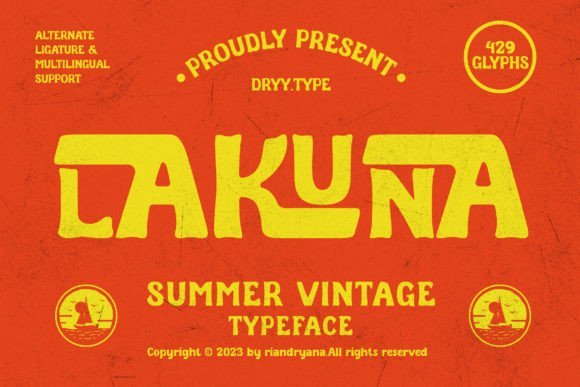
Lakuna, Elegant Serif Display Font for Logos
Lakuna is a hand‑drawn vintage display font featuring a distressed texture and decorative, retro‑inspired letterforms. Its weathered, nostalgic appearance gives your designs a handcrafted, timeless feel — ideal for anything from vintage‑style posters and packaging to rustic apparel and branding. Whether you’re going for retro charm, rustic vibes, or handcrafted appeal, Lakuna adds character and warmth to your typography.
- Vintage or rustic‑style posters, flyers, and print ads
- Retro‑themed T‑shirts, hoodies, mugs, tote bags, stickers — ideal for POD or handmade merch
- Product labels, packaging, signage, or branding materials for handmade, vintage, or boutique‑style products
- Vinyl decals, rustic‑look signage, home‑decor prints, and craft projects using cutting machines or vector software
- Digital art, social‑media graphics, greeting cards, or art prints with nostalgic, weathered typography
Lakuna gives your designs a warm, handcrafted, vintage texture that feels authentic and timeless. It stands out for projects seeking rustic charm, retro nostalgia, or artisanal vibes — ideal for boutique brands, handmade products, and classic‑style merchandising. As a free font with a license including commercial use, it’s a cost‑effective way to add strong personality and character to apparel, packaging, print, and digital creations.
A: Absolutely — Lakuna’s distressed, retro look makes it ideal for logos, product packaging, handmade goods, signage, and branding with a nostalgic or rustic vibe. -
| Style / Vibe | Hand‑drawn, distressed, vintage/retro, nostalgic, rustic | Modern, minimal, clean, neutral sans‑serif | Retro display but flat and clean (no distressed texture) |
| Best Use Case | Vintage posters, rustic packaging, handmade‑brand labels, retro merch, craft signage | Modern branding, clean packaging, minimal UI/web text | Retro‑themed graphics, but more polished & less organic than Lakuna |
| Feel‑Good / Uniqueness | High — handmade, weathered, nostalgic look gives personality | Low — clean and neutral, lacks vintage or distressed character | Medium — retro vibe but less handmade charm |